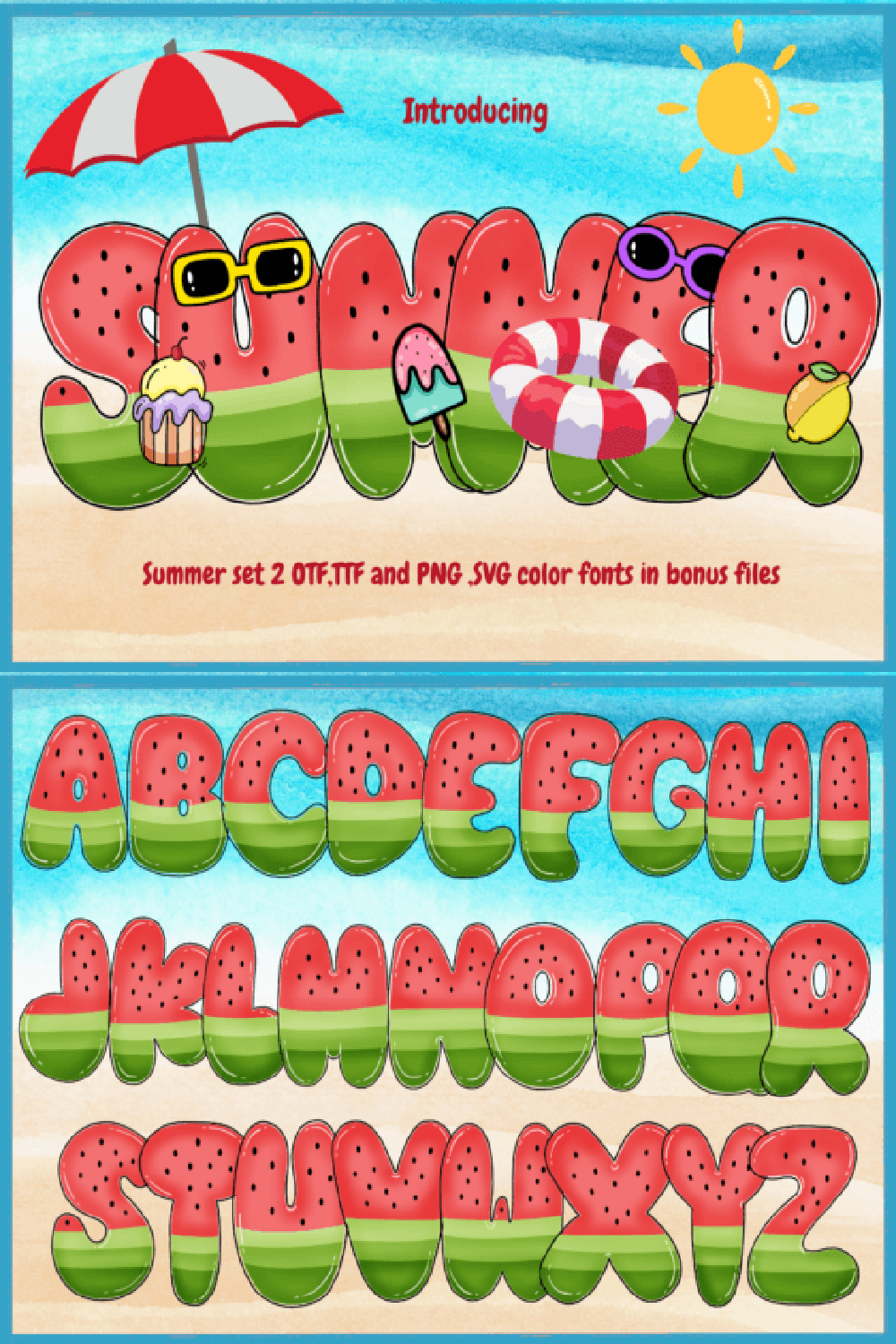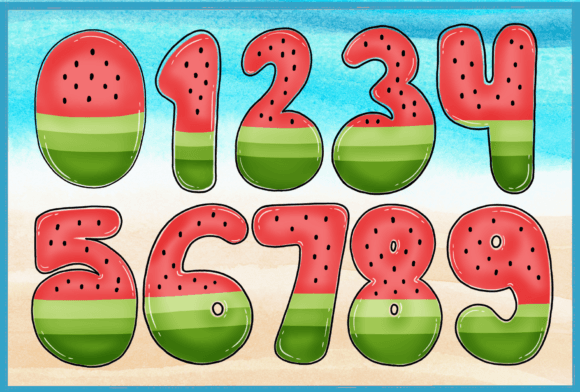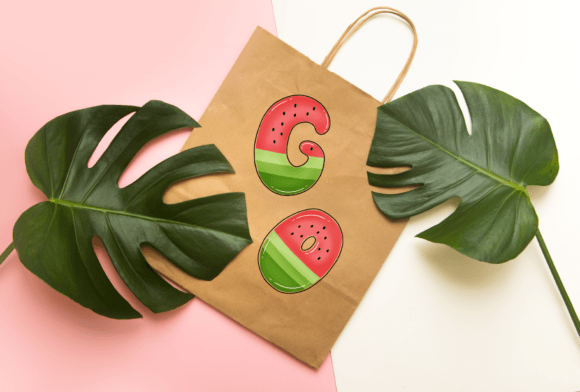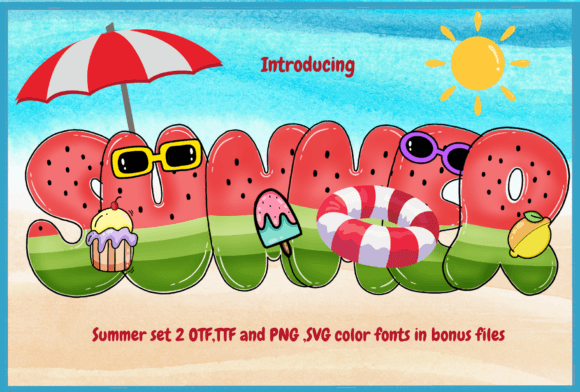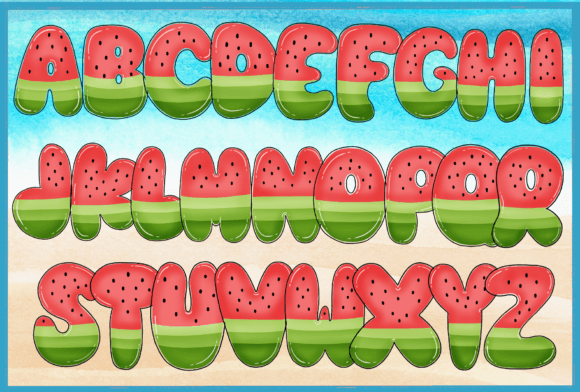
Summer Set Font
About the Summer Set Font
Presenting Summer Set Font, a unique and stylish typeface that will make your work stand out. Summer Set is a sweet, delicious, watermelony decorative font. Add it to your summer-themed projects and you will love the results!
Summer Set Font Usage Examples